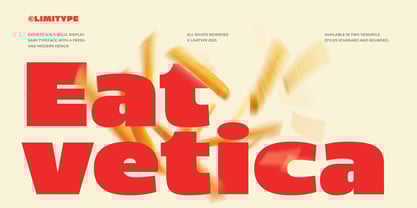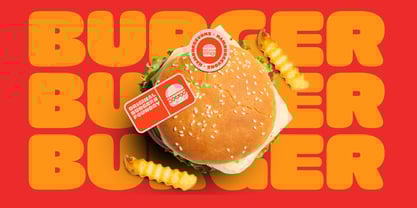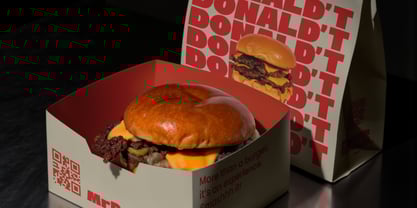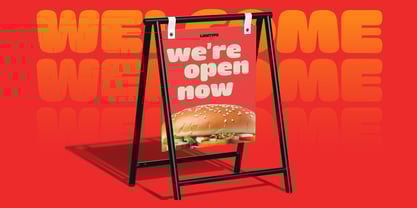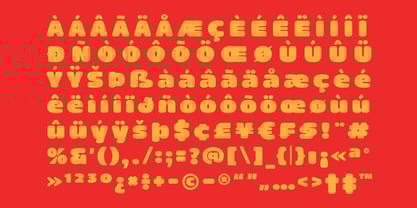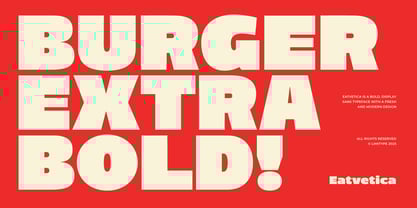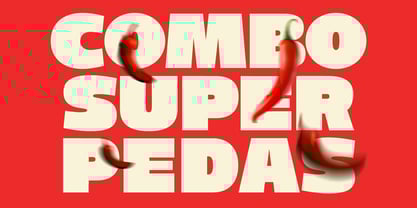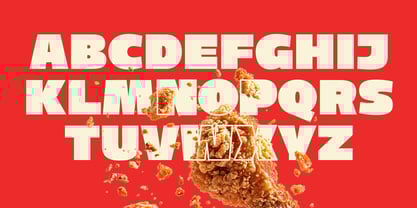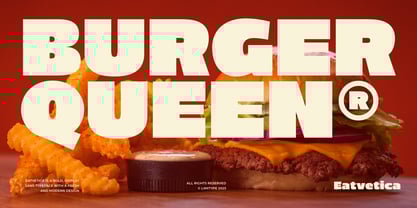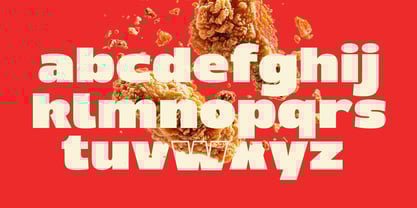
Eatvetica
The Eatvetica Font Family was designed by Ridwan Fadilah, Muhammad Muammar, Furqan Sudirman and published by limitype. Eatvetica contains 2 styles and family package options.
Eatvetica – Bold Food Font
Add a bold flavor to every design with Eatvetica – Bold Food Font, a typeface crafted specifically for the culinary world and food-themed designs. With its strong and well-proportioned letterforms, Eatvetica delivers a powerful yet friendly look, making it the perfect choice for restaurant menus, food packaging, café branding, and promotional posters.
Available in two distinct styles: Standard, for a modern and clean appearance, and Rounded, for a warmer and more playful vibe. This combination offers maximum versatility for all your creative projects.
Eatvetica Available with :
- Uppercase
- Lowercase
- Number
- Symbol
- Multilingual
- Standart/Rounded Version
Designers: Ridwan Fadilah, Muhammad Muammar, Furqan Sudirman